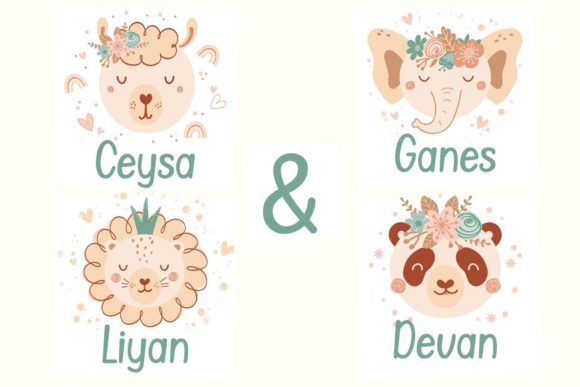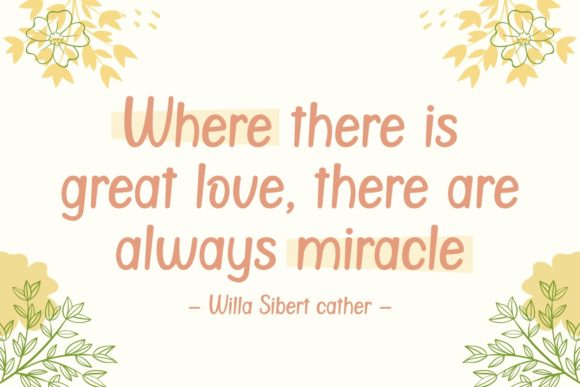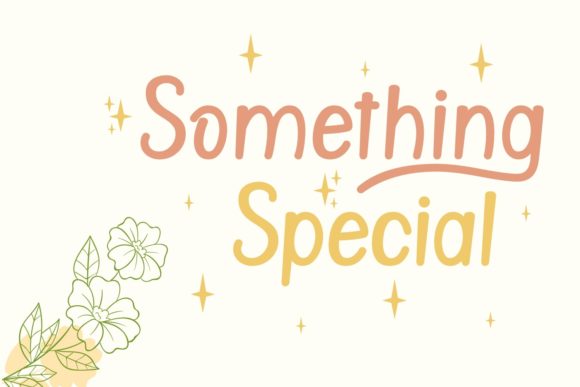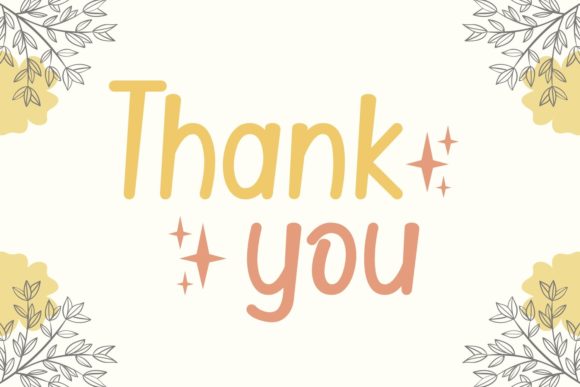
Over Sweety Font
About Over Sweety Font
Over Sweety is a chic and exquisite script font that exudes elegance and class. This font was particularly crafted for those who need a beautiful and refreshing look to their designs.